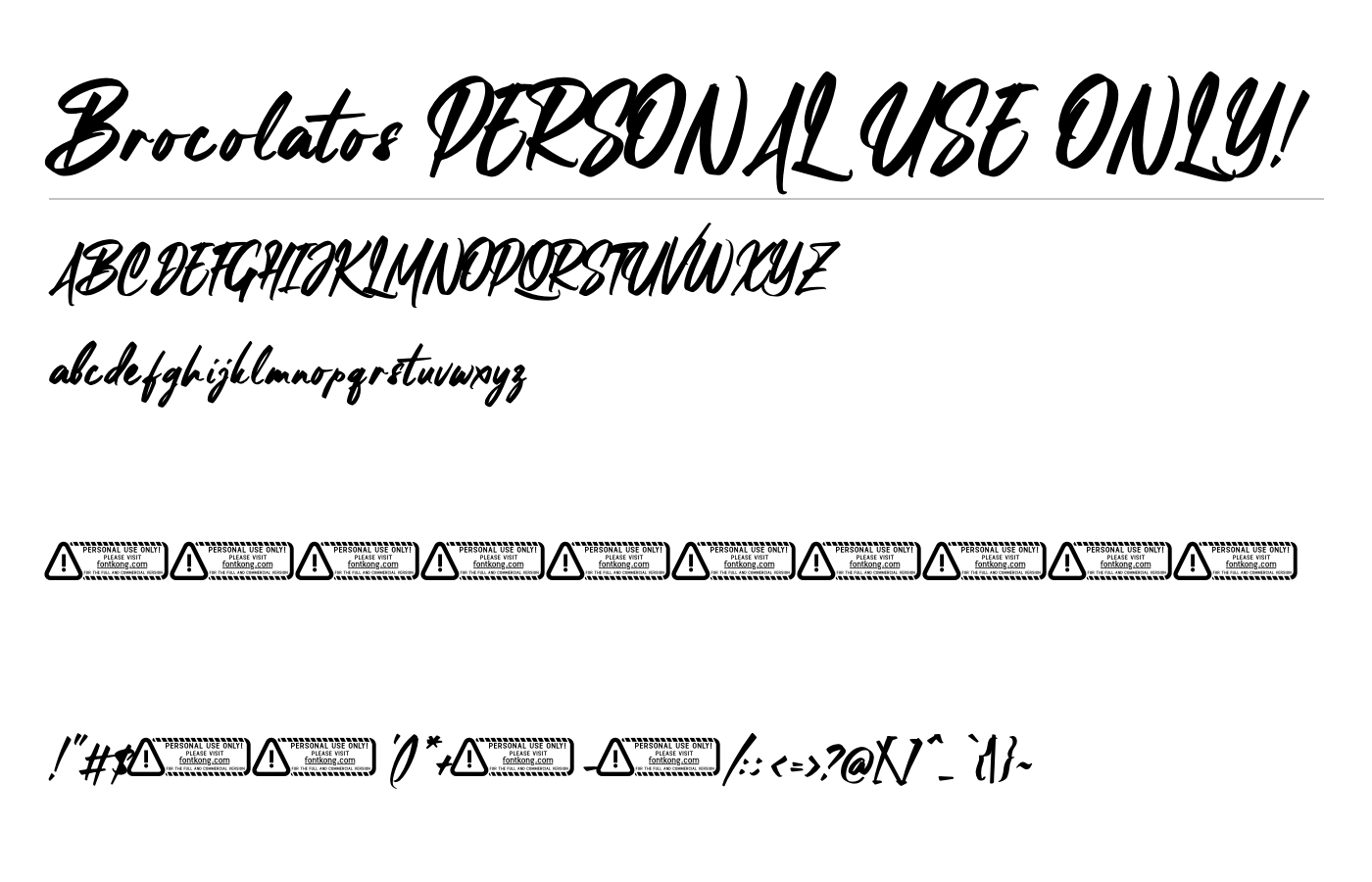
Brocolatos is a dynamic and expressive script font characterized by its bold, brush-like strokes and lively, casual style. With a high contrast between thick and thin lines and unique, fluid letterforms, it conveys a playful yet confident mood, making it ideal for creative branding, lively headlines, and artistic projects that seek an energetic and personal touch. Its vibrant personality works well for fashion, lifestyle, and modern design contexts where a hand-crafted, stylish feel is desired.